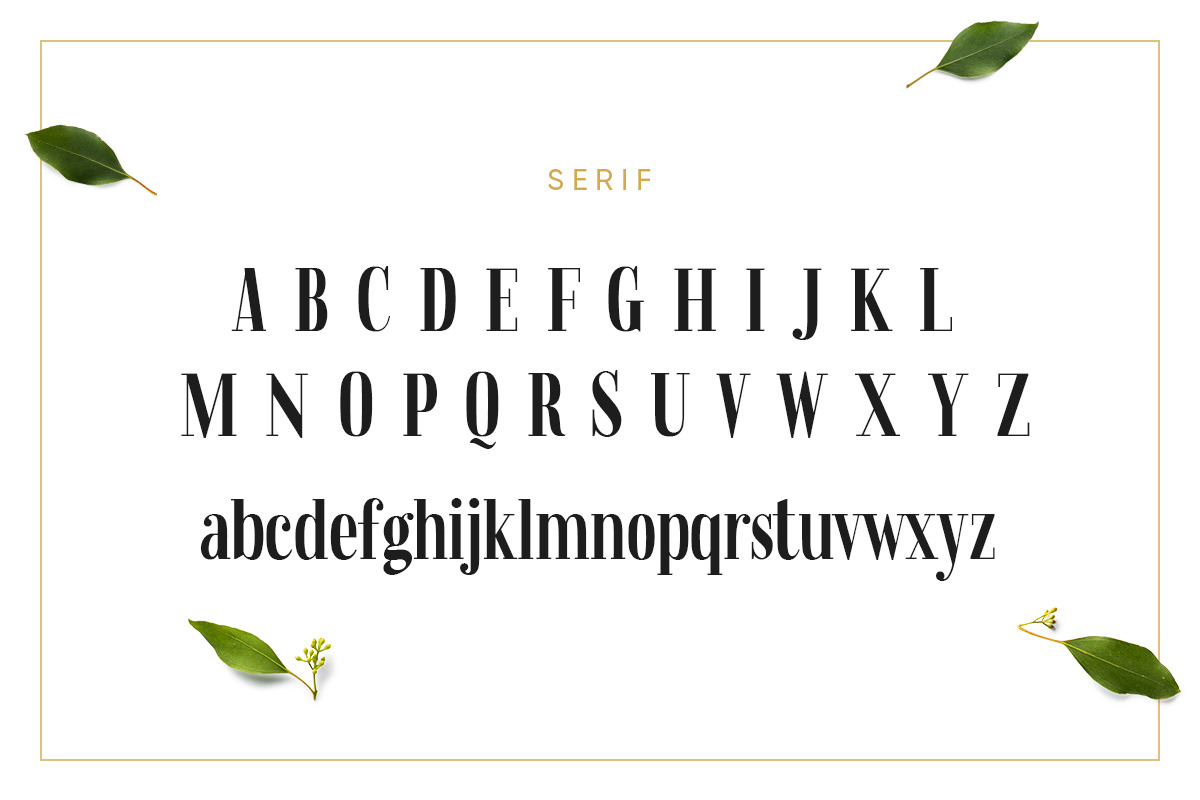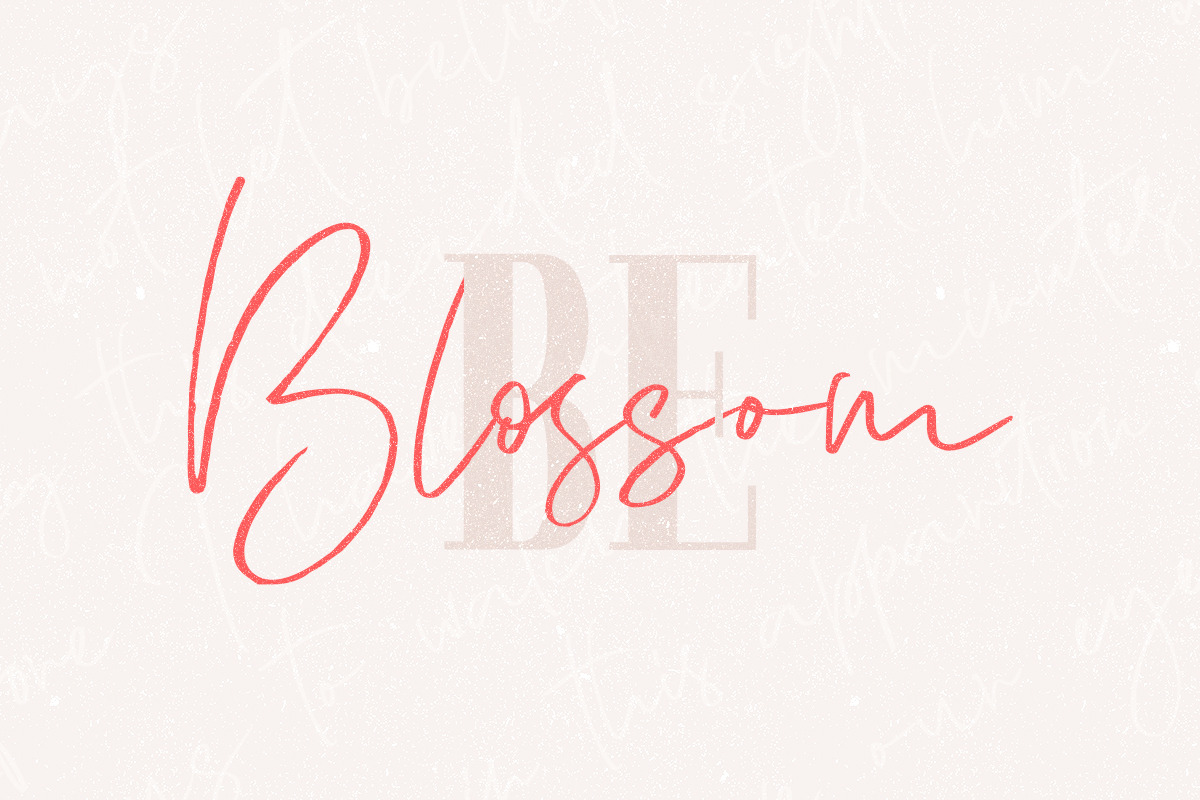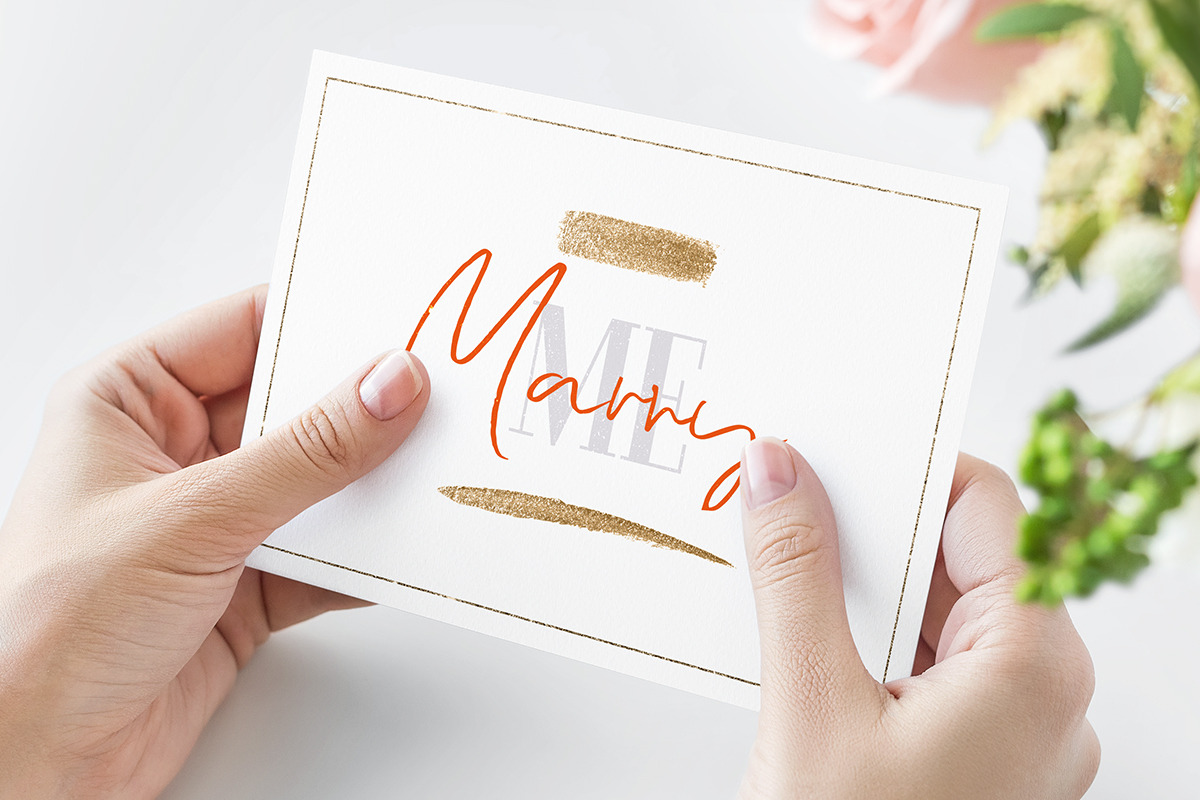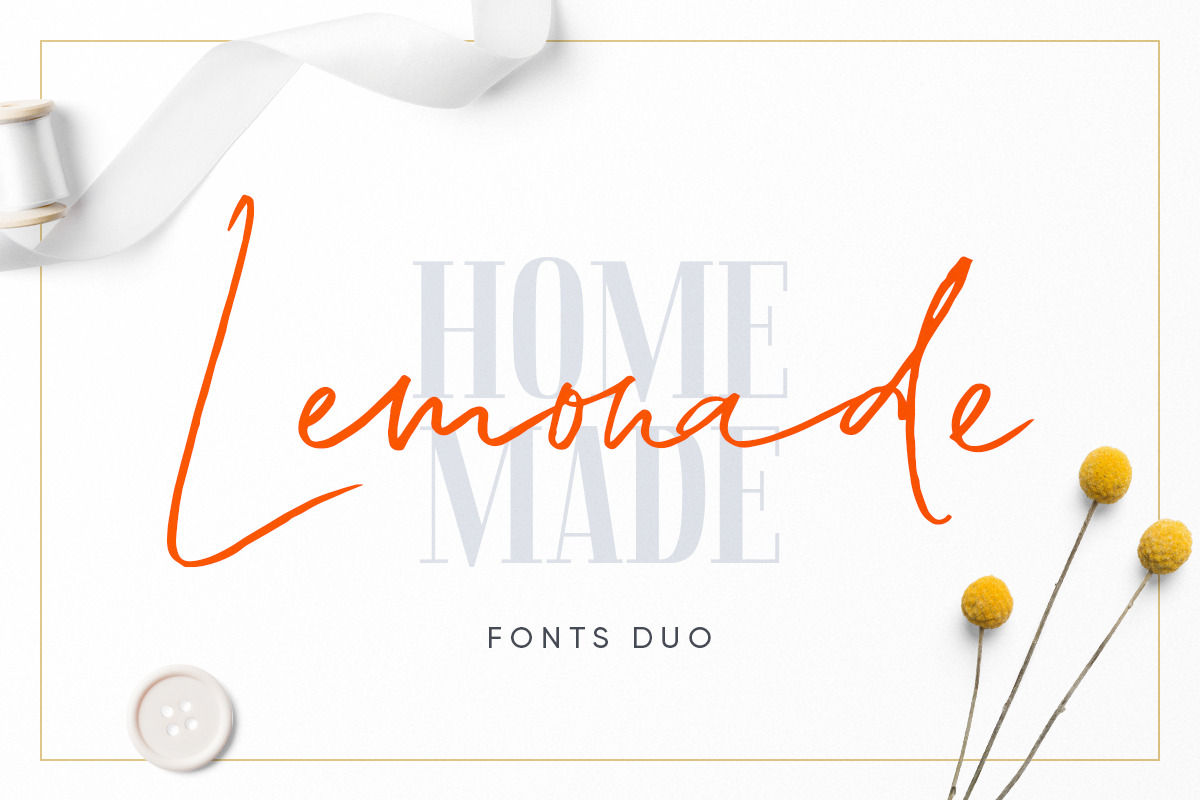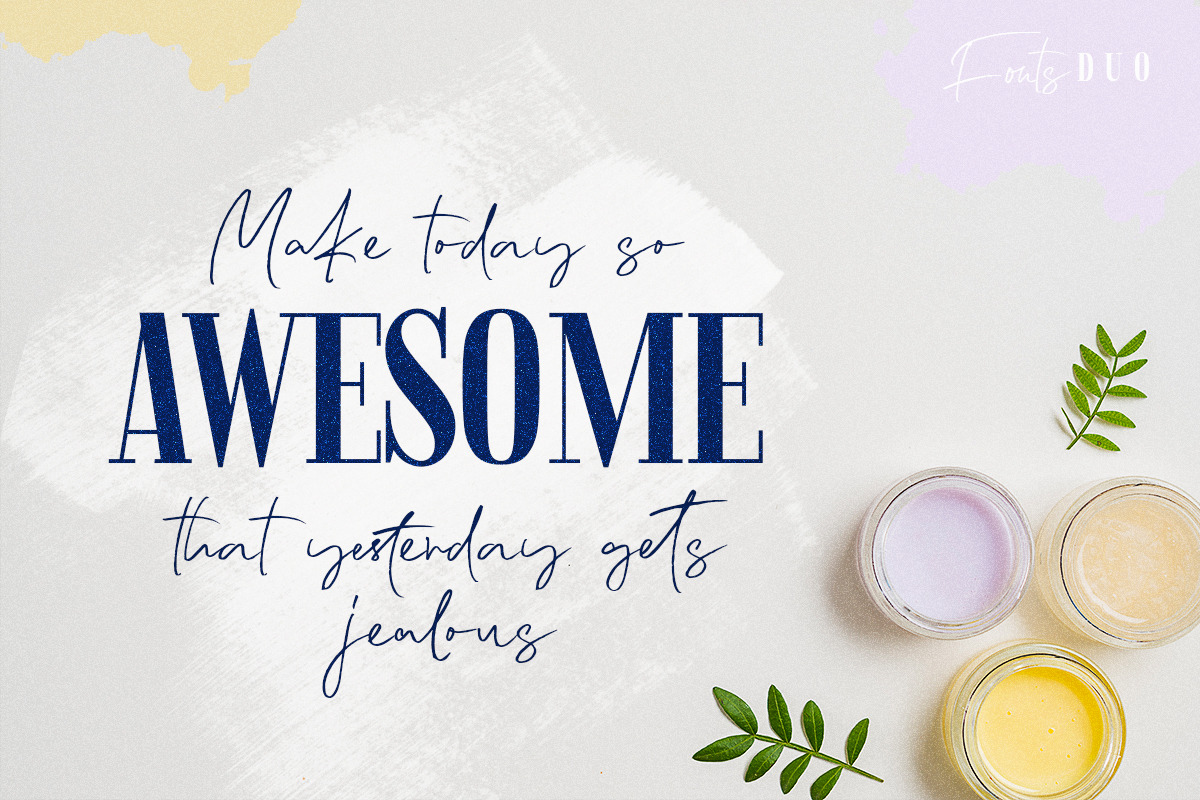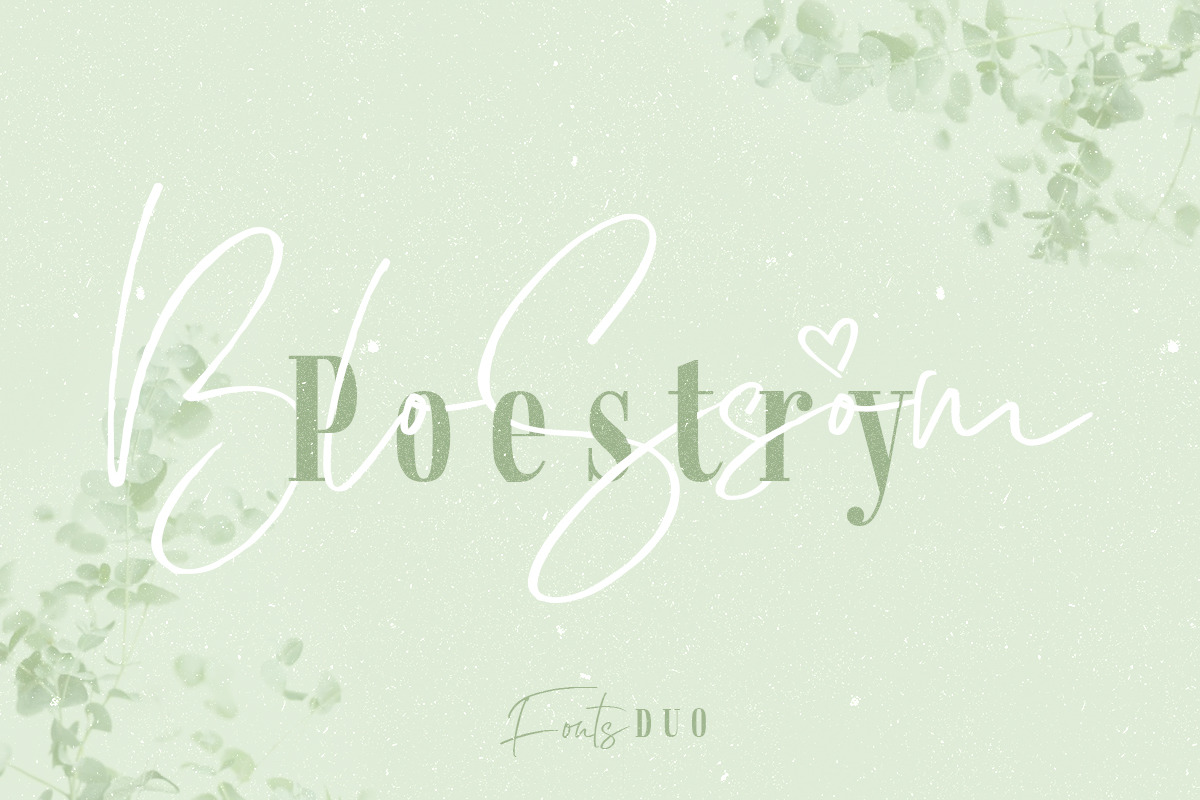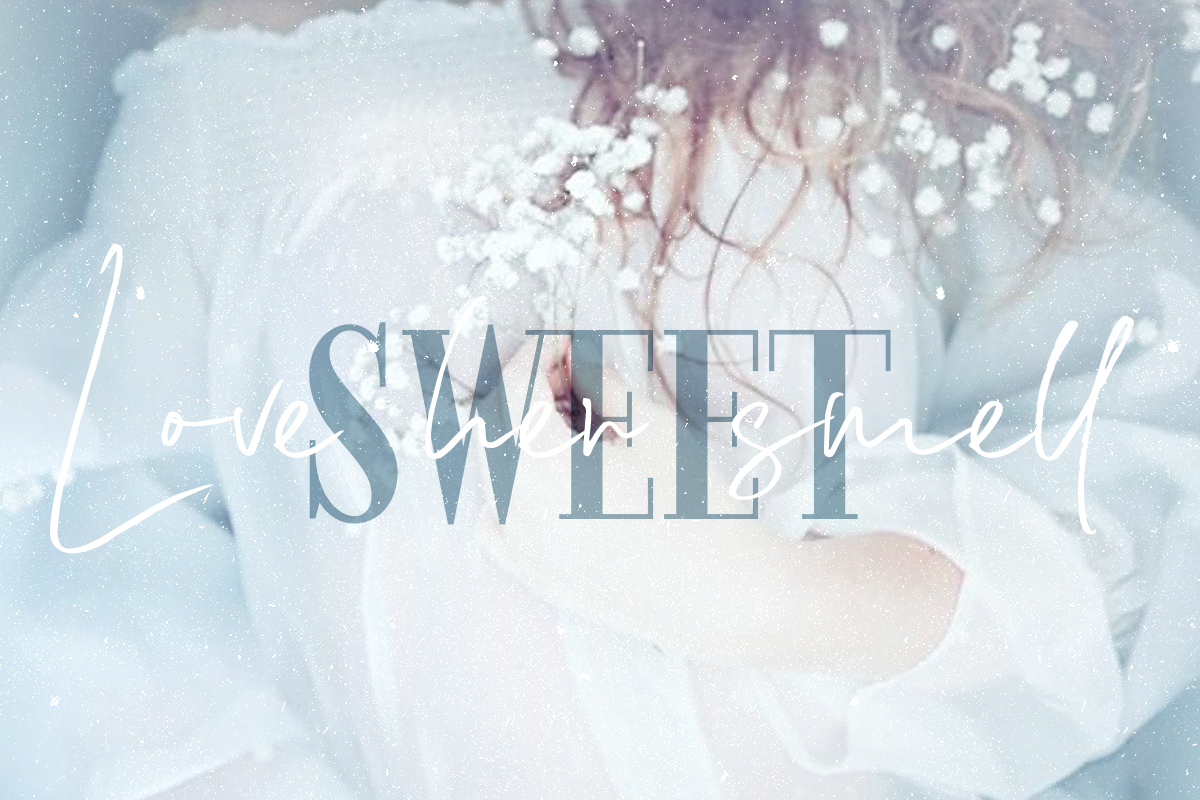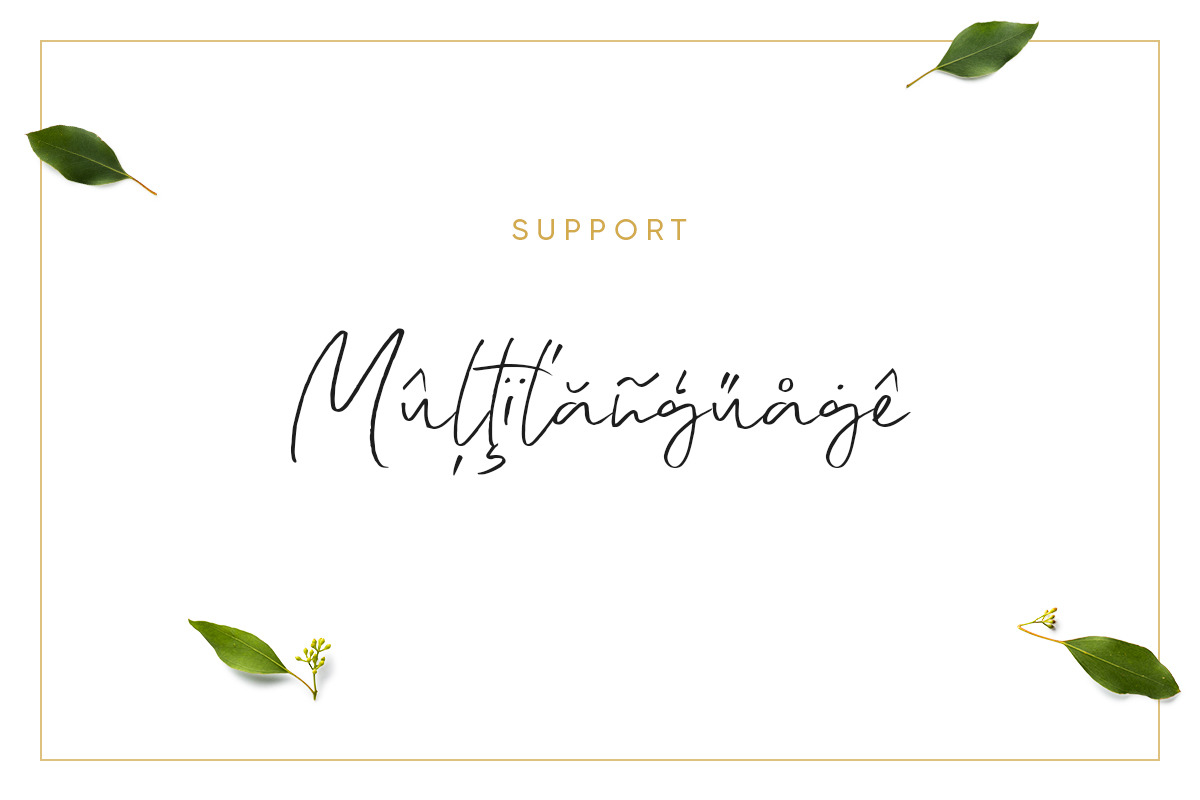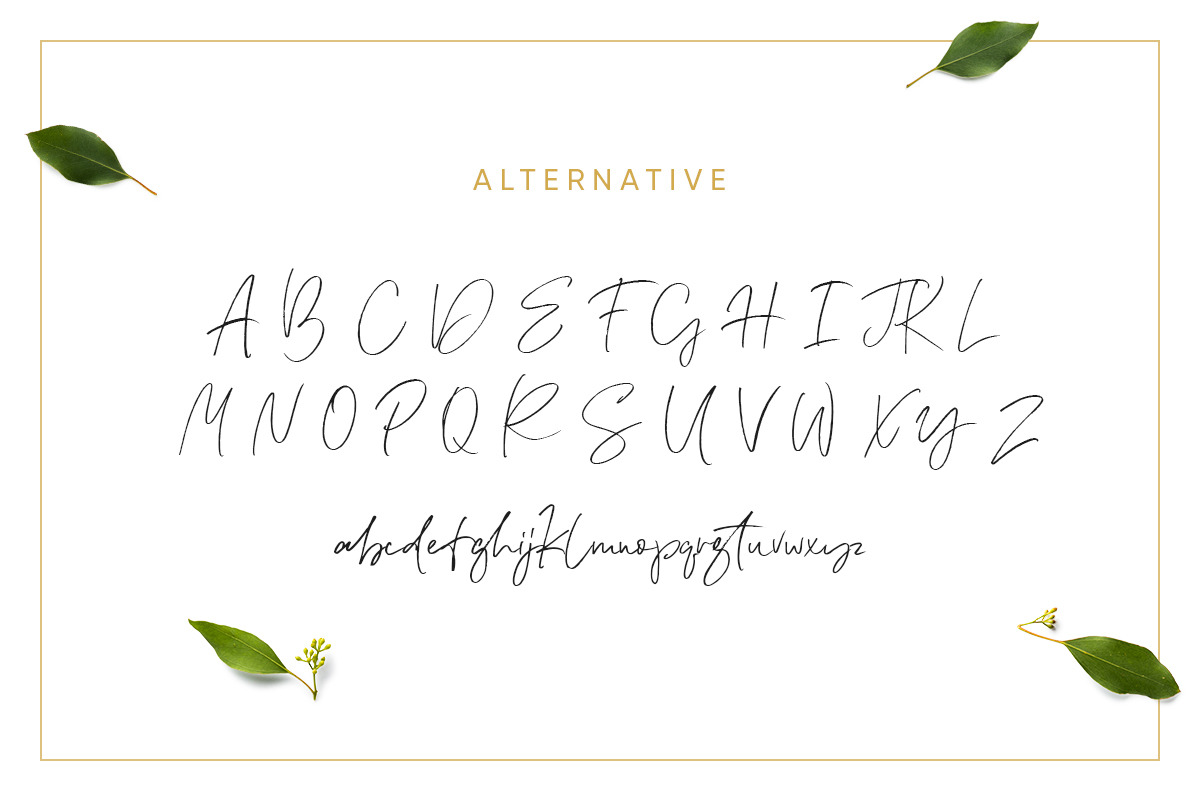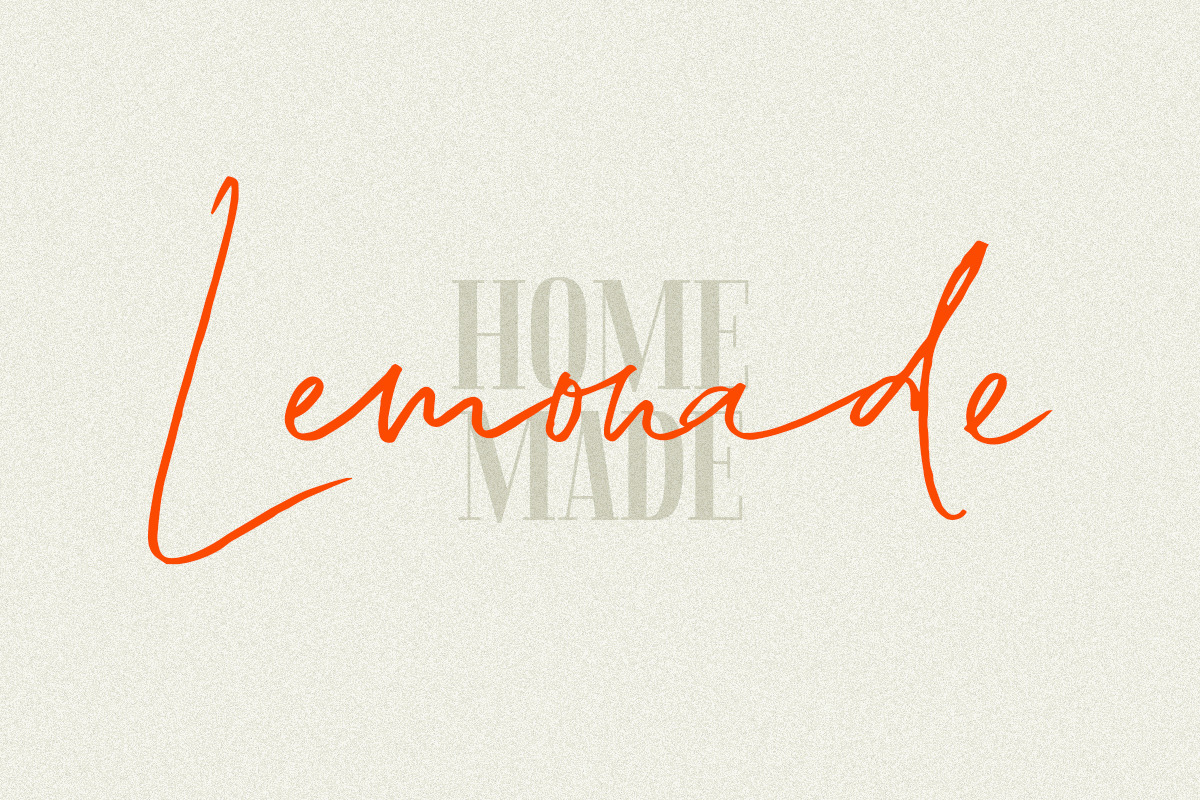
Lemonade Fonts Duo
Introducing the new "Lemonade Fonts Duo" script and serif fonts – a fashionable handwriting, signature-style script, and an elegant, classy, all-caps serif font.
Perfect for branding, weddings, presentations, posters, social media, product design, advertising. Lemonade Fonts Duo includes over 50 ligatures to make everything look totally hand-done.
- Lemonade Script
- Fjord Serif
- Upper + Lowercase Letters w/ alternates
- Numbers + Punctuation
- Languages Support
- 50+ ligatures